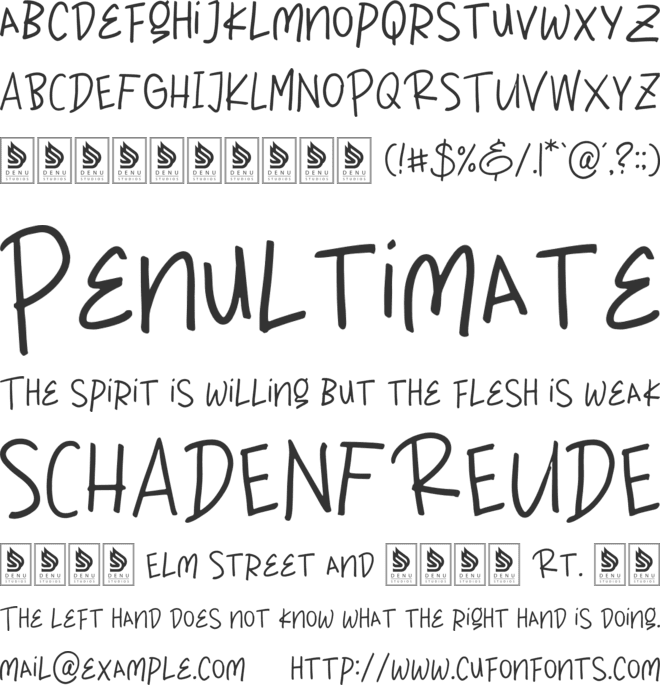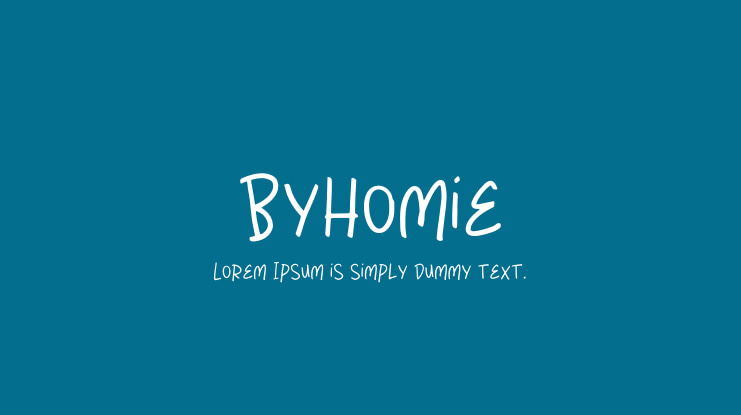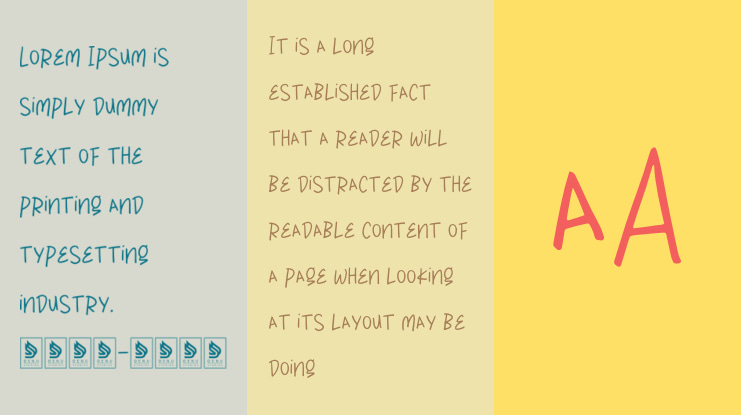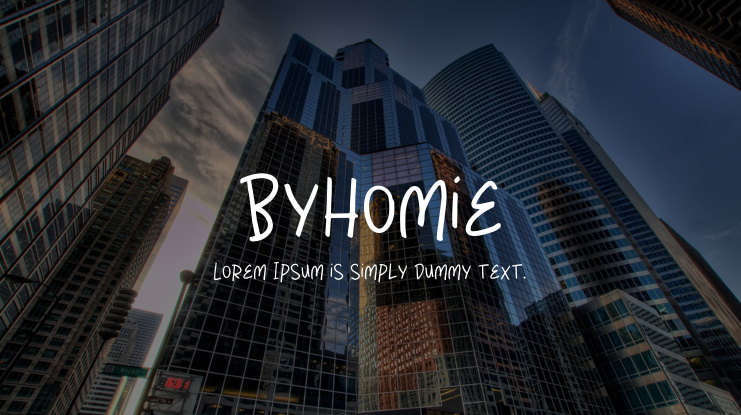
ByHomie Font
ByHomie | Handwriting Font is suitable for any projects such as logos, branding projects, homeware designs, product packaging, mugs, quotes, posters, shopping bags, t-shirts, book covers, name cards, invitation cards, greeting cards, labels, photography, watermarks, special events, and all your other lovely projects that need a Handwriting Font taste.